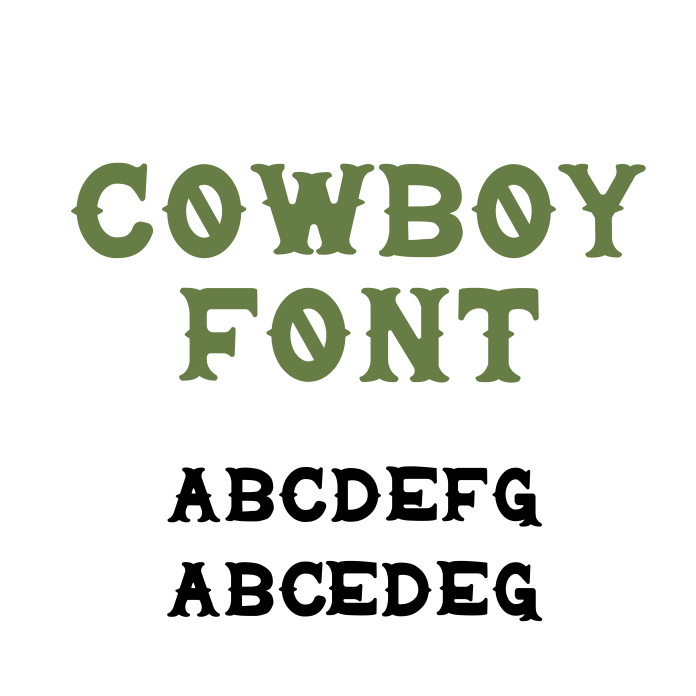
Bring rustic charm to your designs with this bold cowboy font! Featuring sharp serifs and a sturdy, western-inspired style, this font is perfect for creating rugged, vintage-themed projects. Whether you’re designing for country western events, rodeo signs, or custom apparel, the uppercase and lowercase letters deliver a bold, authentic feel that stands out. Its classic serif design adds an extra touch of character and western flair to any project, making it ideal for creating custom invitations, banners, and more. Add some cowboy spirit to your next creation with this versatile, eye-catching font!